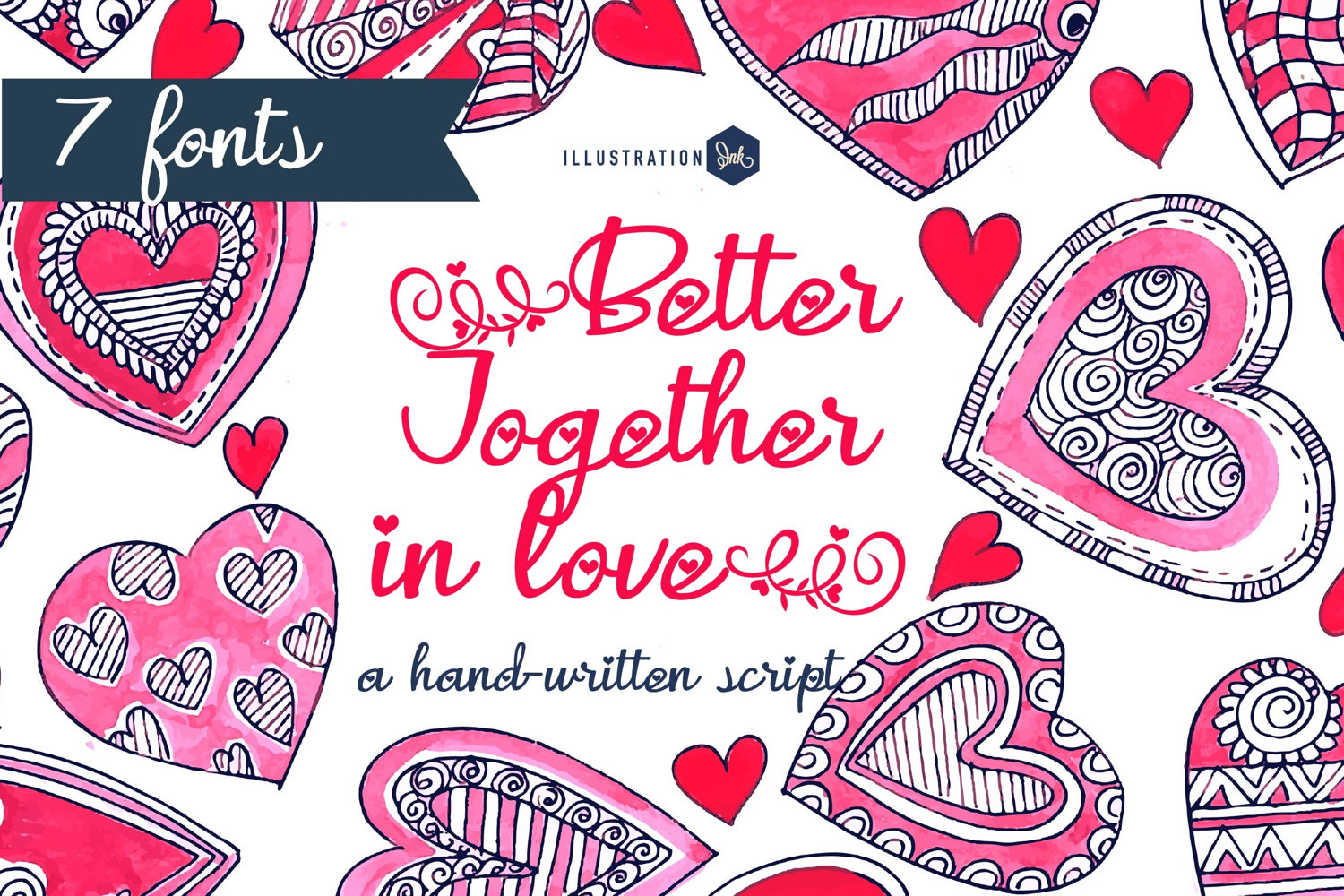
ZP Better Together in Love Font Family
This hand-crafted font is a beautiful hand-written script with hearts on several versions. 7 versions included.